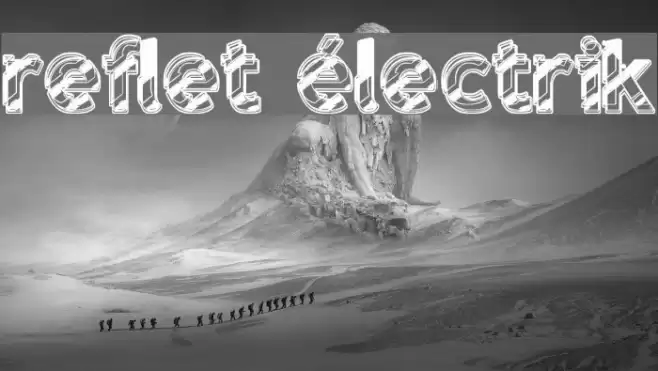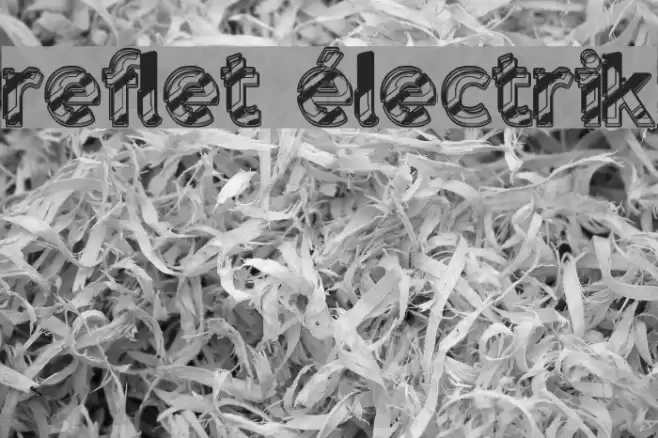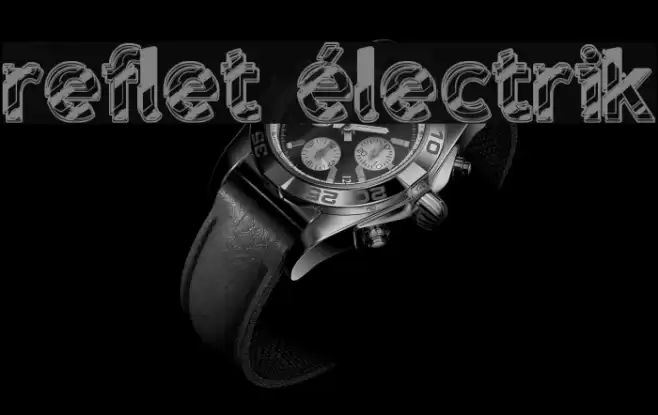
reflet électrik Font
reflet électrik Description
This font features a bold, decorative style with a unique, layered outline effect that creates a sense of depth and dimension. The characters are uppercase and lowercase letters, numerals, and a variety of special symbols, all designed with a consistent, playful aesthetic. The strokes are thick, with a high contrast between the filled and outlined areas, giving the font a dynamic and eye-catching appearance. The design is reminiscent of retro or vintage styles, yet it maintains a modern edge through its geometric forms and structured layout. The font's intricate detailing makes it ideal for projects that require a standout visual impact.
A bold, decorative font with a layered outline effect, offering a retro yet modern look from Crazy fonts.
- Proposed Projects: Ideal for posters, logos, branding, and any design that requires a bold statement.
- Overall Style: Retro, Modern